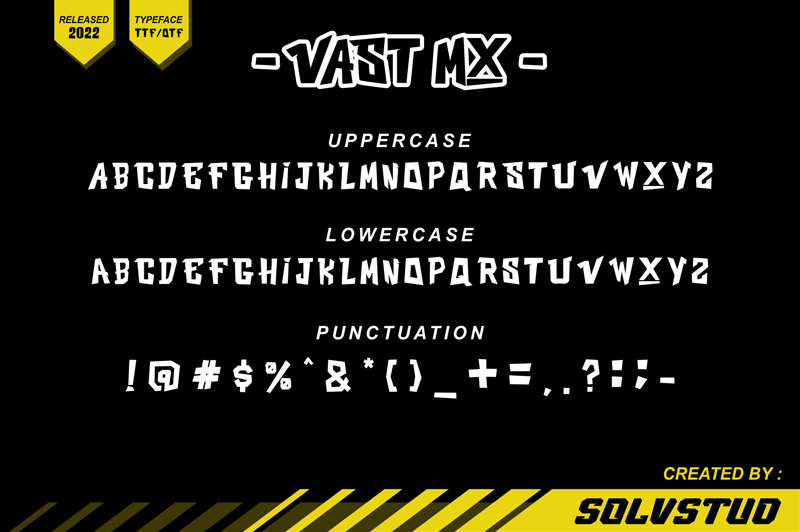
Font name: | Vast Mx |
Author: | Solv Vast |
Note by Solv Vast | |
Vast MX is new extreme display font. This font suitable for Extreme sport theme, dirt bike race, mx gear, etc. Use this font for your cool design project. (NOT COMMERCIAL USE) more info: solvstud@gmail.com antotline@gmail.com Thank you for your download Hope you enjoy with our font! |